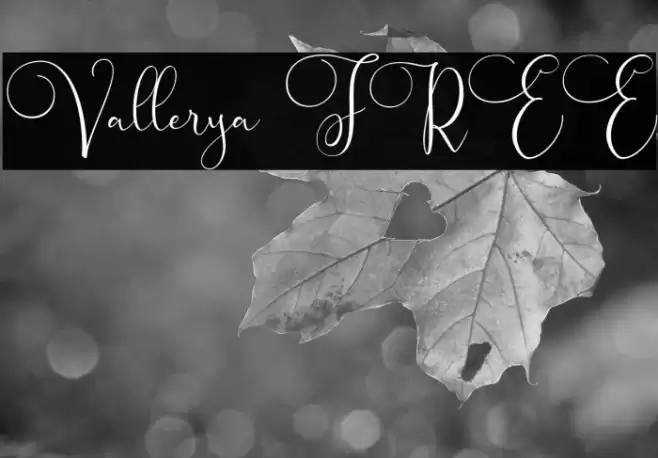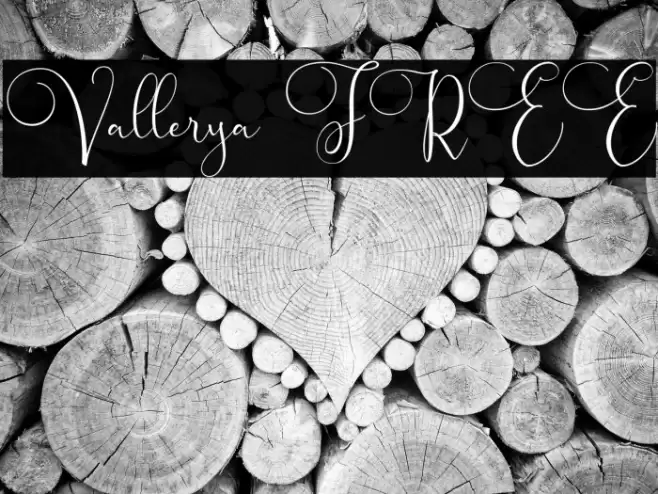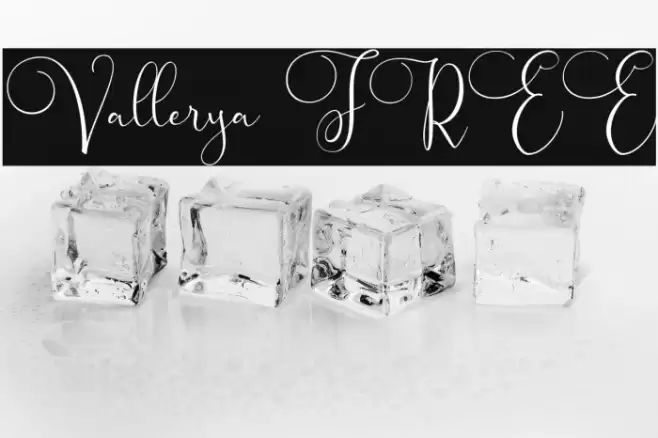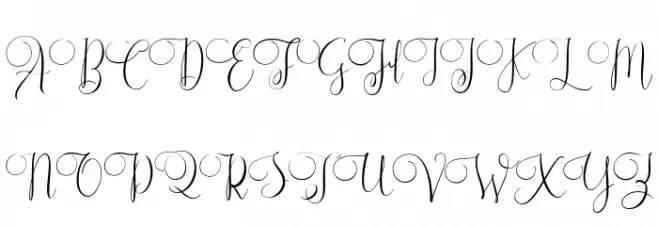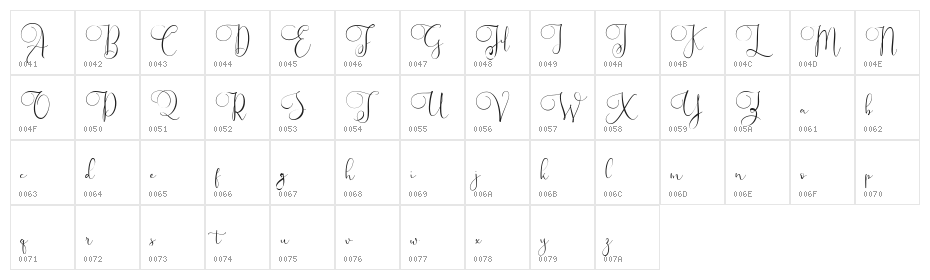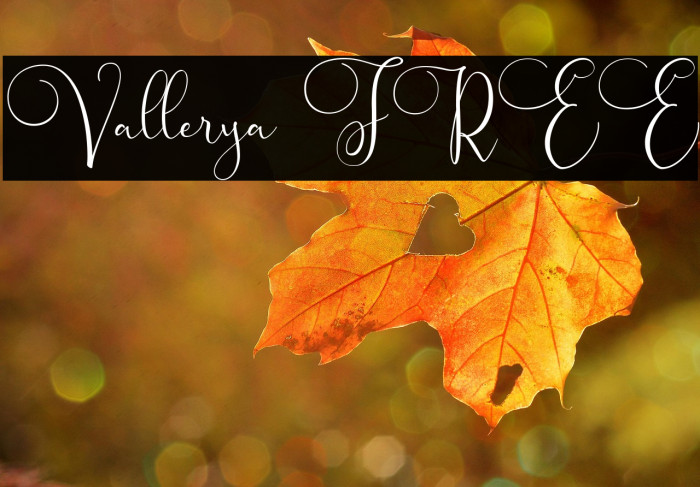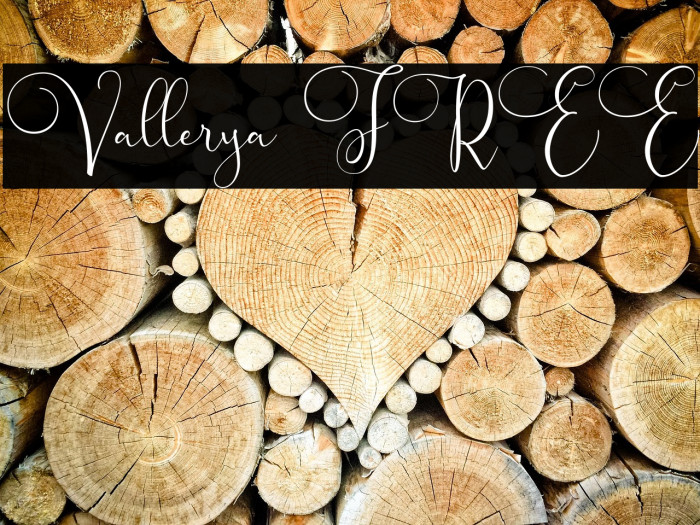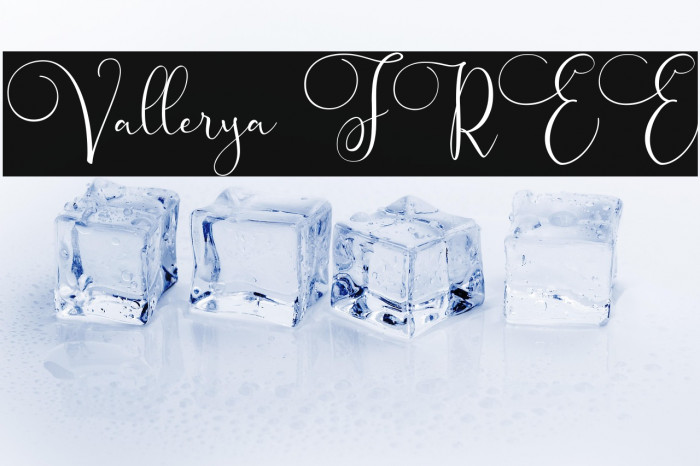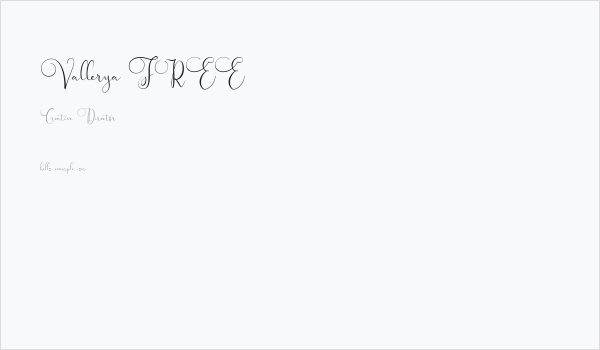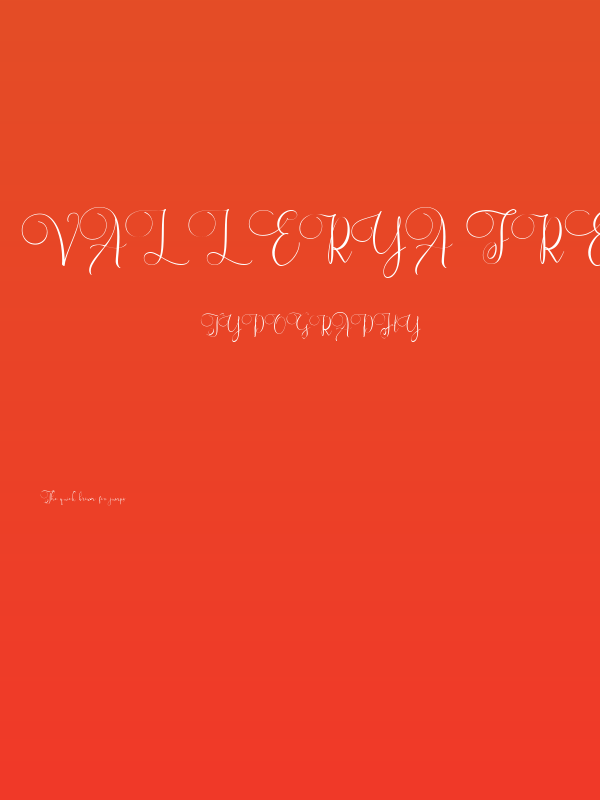
Vallerya FREE Font
Vallerya FREE Description
This font features an elegant and flowing script style, characterized by its intricate swirls and loops. The uppercase letters are particularly ornate, with extended flourishes that give a sense of movement and grace. The lowercase letters maintain a consistent flow, complementing the uppercase with a slightly more subdued elegance. The overall design is delicate yet expressive, making it suitable for formal and decorative purposes. The characters are well-spaced, allowing for readability despite the elaborate design. This font exudes a sense of sophistication and artistry, perfect for creating a luxurious and refined aesthetic.
An elegant script font with intricate swirls and flowing lines from Regular fonts.
- Font: Vallerya FREE
- Proposed Projects: Ideal for wedding invitations, luxury branding, elegant stationery, and decorative headlines.
- Use Case: Logos, Invitations, Headlines